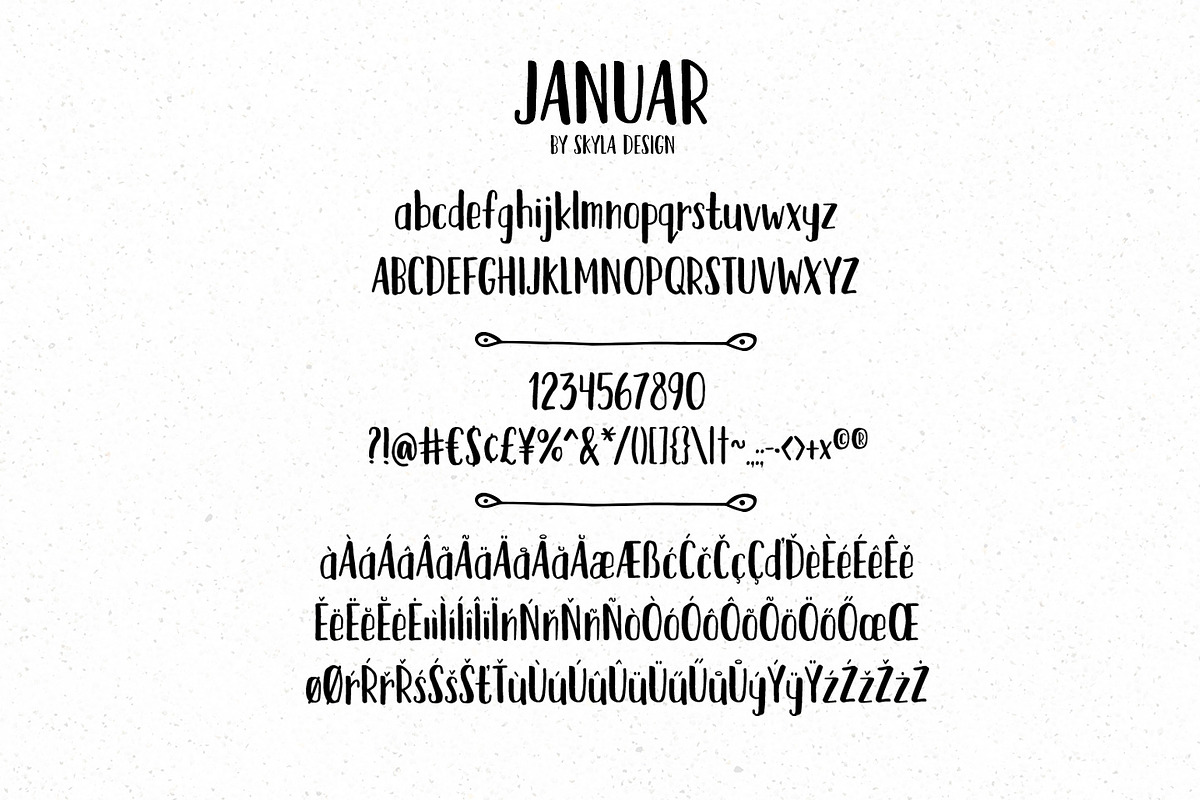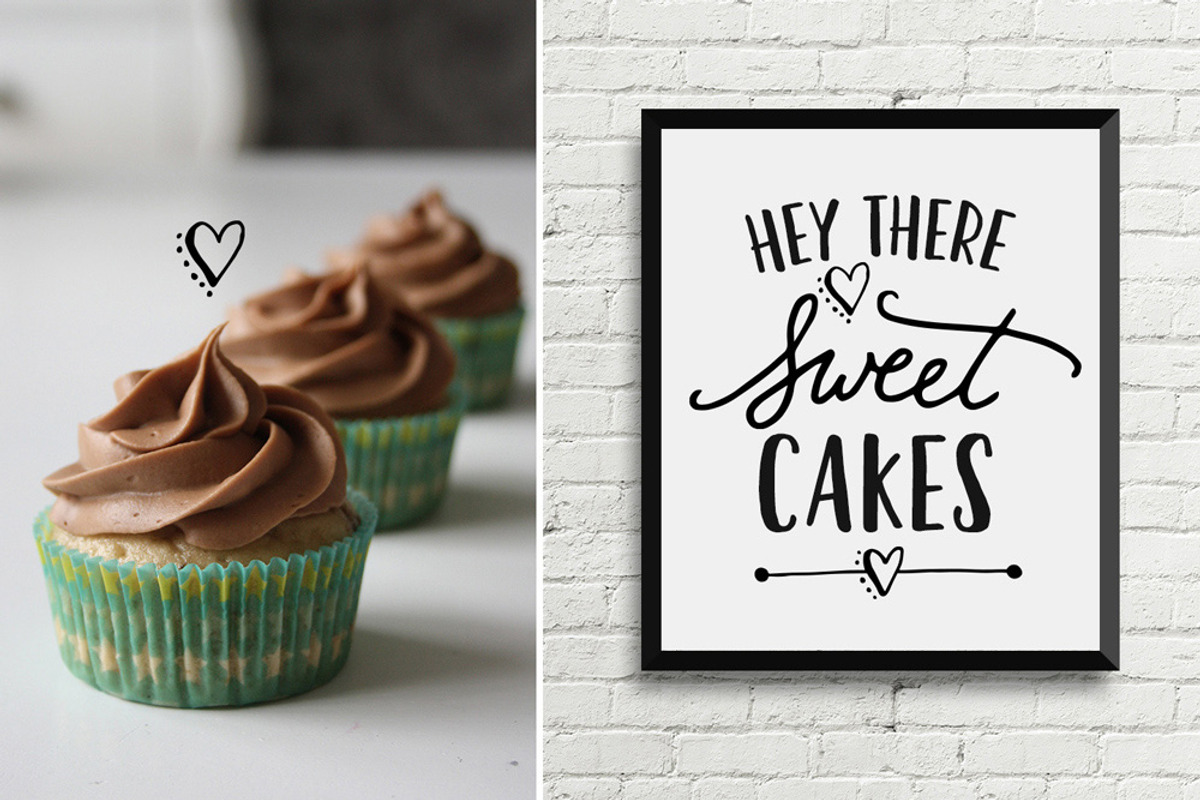
Januar fun handwritten font
Januar fun handwritten font by Angele Kamp is a font selected for branding, posters, packaging, typography.
- WHAT'S INCLUDED This font contains standard characters, lowercase, uppercase, numbers, punctuation and international characters.
Why Januar fun handwritten font is worth a look
Januar fun handwritten font by Angele Kamp fits naturally into Branding, posters, packaging, typography.